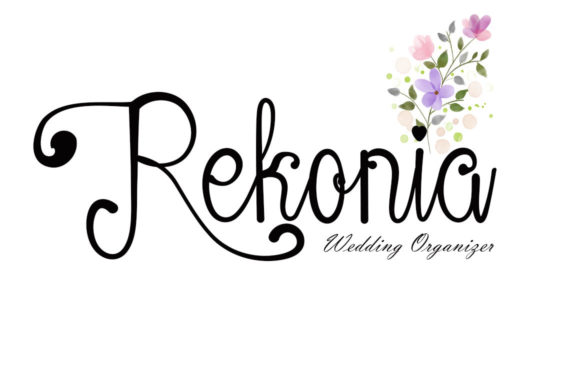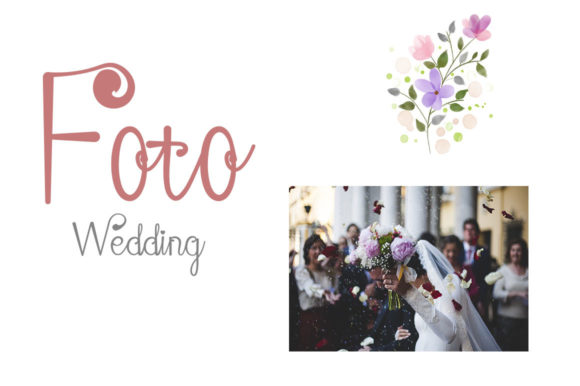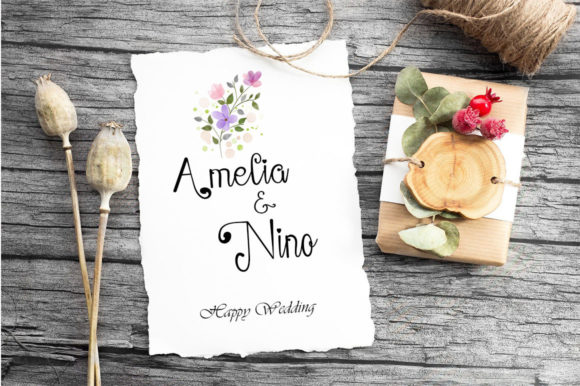
Introduction to Juanita Font
As a designer, have you ever stared at a blank canvas, waiting for that perfect font to bring your creative project to life? For many of us, it’s a moment of pure frustration and excitement, knowing that the right font can make all the difference in setting the tone for our design. And that’s exactly what we’re about to explore – the enchanting world of Juanita Font.
This lovely script font has captured the hearts of designers everywhere with its delicate elegance and high-quality aesthetic. With its beautiful curves and refined lines, Juanita Font is the perfect design resource for those seeking a touch of sophistication and class. Whether you’re working on a free download project or a paid commission, this versatile font is sure to impress.
- Available in a single weight, ideal for use in logos, titles, and headings.
Honest Review: Juanita Font
As a designer, I’m always on the lookout for high-quality fonts that can elevate my creative projects. Recently, I stumbled upon Juanita Font, and I must say, it’s a fantastic addition to any design arsenal.
What works well about Juanita Font is its versatility. It comes in a variety of styles, from bold and playful to elegant and sophisticated, making it perfect for a wide range of design projects. Additionally, the font is available as a free download, which is a huge plus in my book. The transparent background feature also makes it easy to customize and integrate into any design.
Here are some key features that I love about Juanita Font:
- High-quality design with a unique aesthetic
- Available in multiple styles and weights
One limitation of Juanita Font is that it may not be suitable for extremely formal or conservative designs. The font’s playful and creative vibe may not be the best fit for more traditional or professional projects.
Overall, I’m thoroughly impressed with Juanita Font. It’s a great addition to any designer’s toolkit, and its free availability makes it an excellent resource for creatives of all levels.
Common Use Cases for Juanita Font
The Juanita Font is ideal for a variety of creative projects, including blog posts, social media graphics, and marketing materials. Its high-quality design and transparent background make it a versatile resource for designers and non-designers alike.